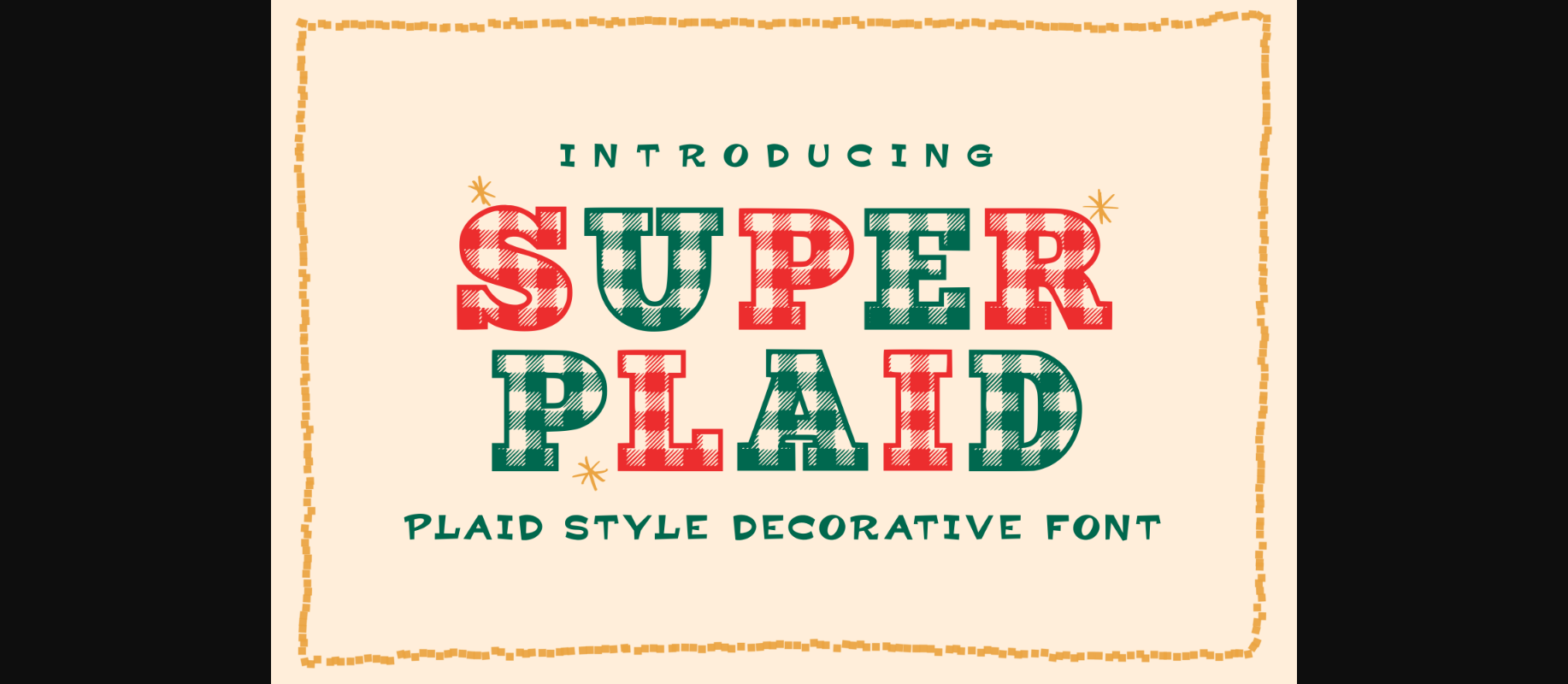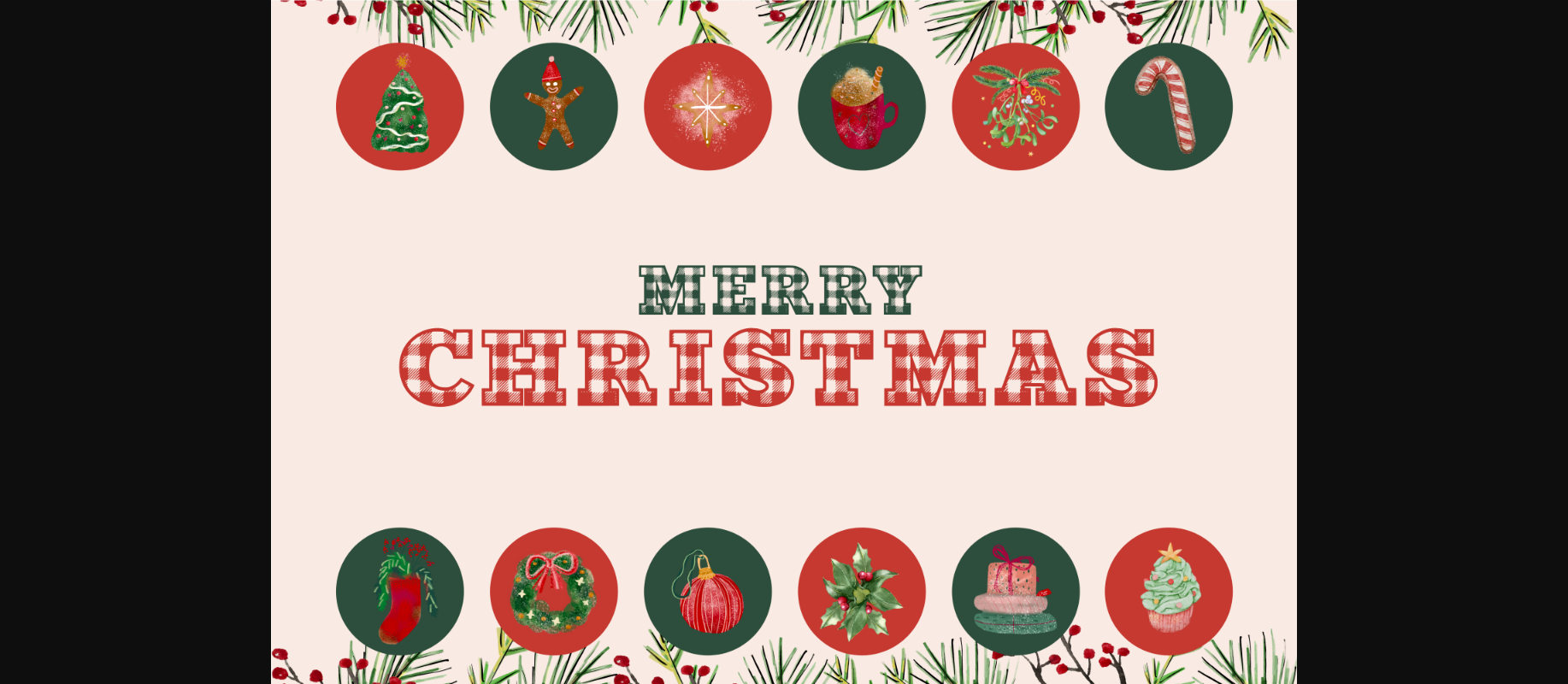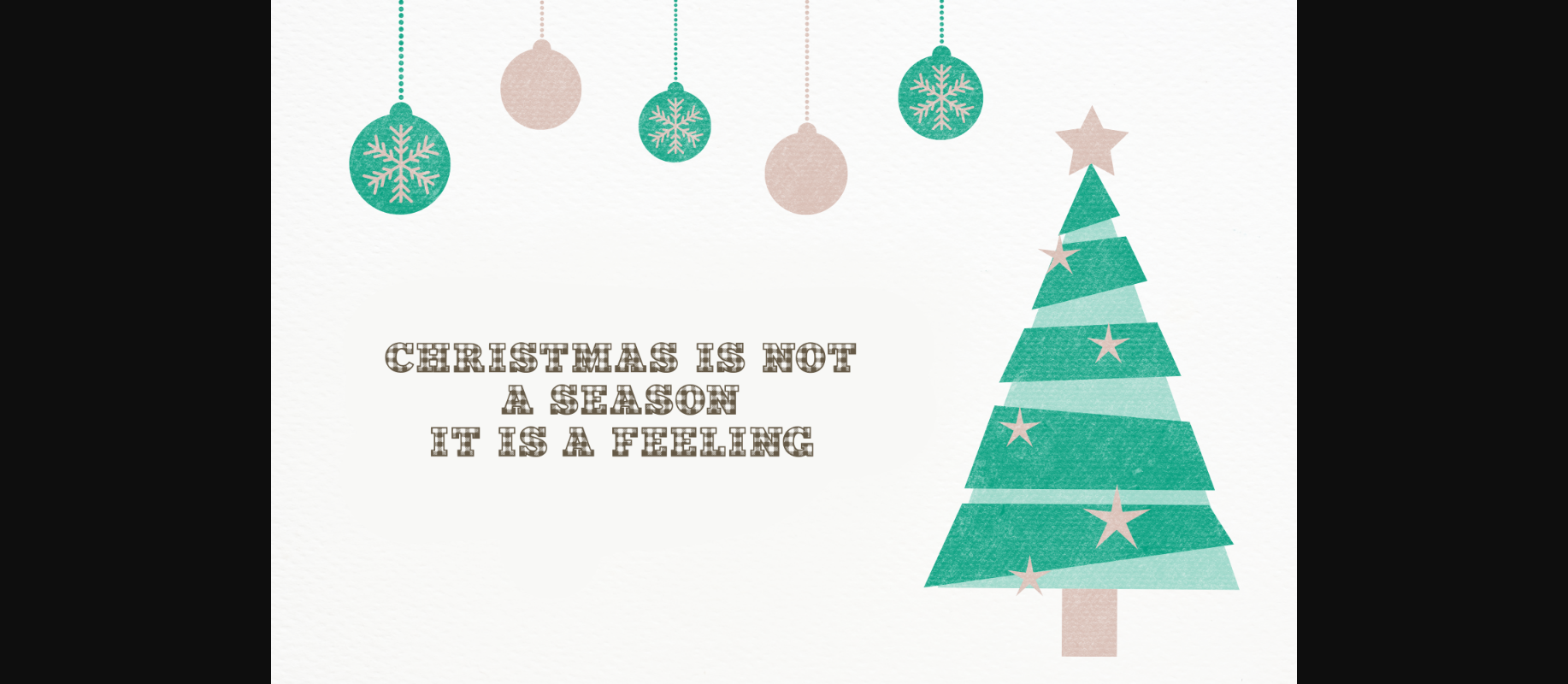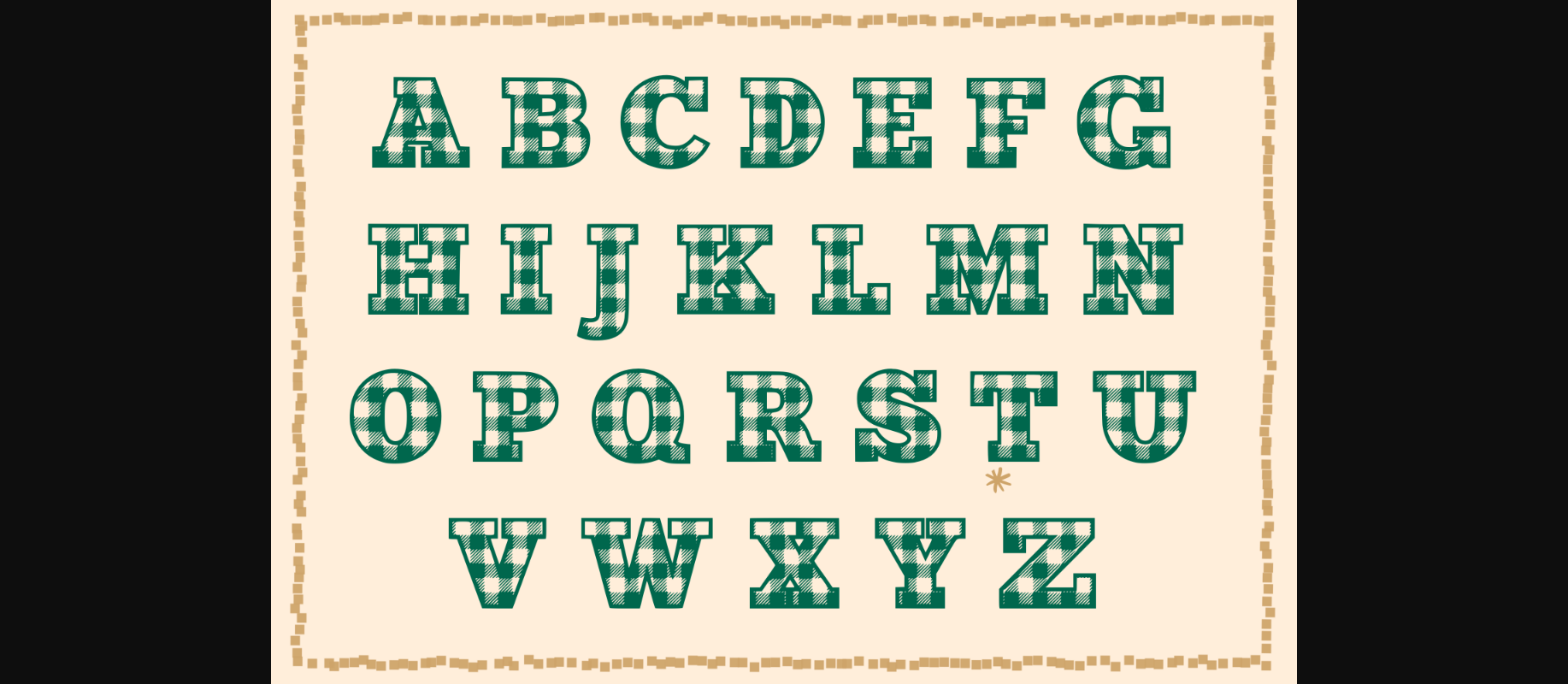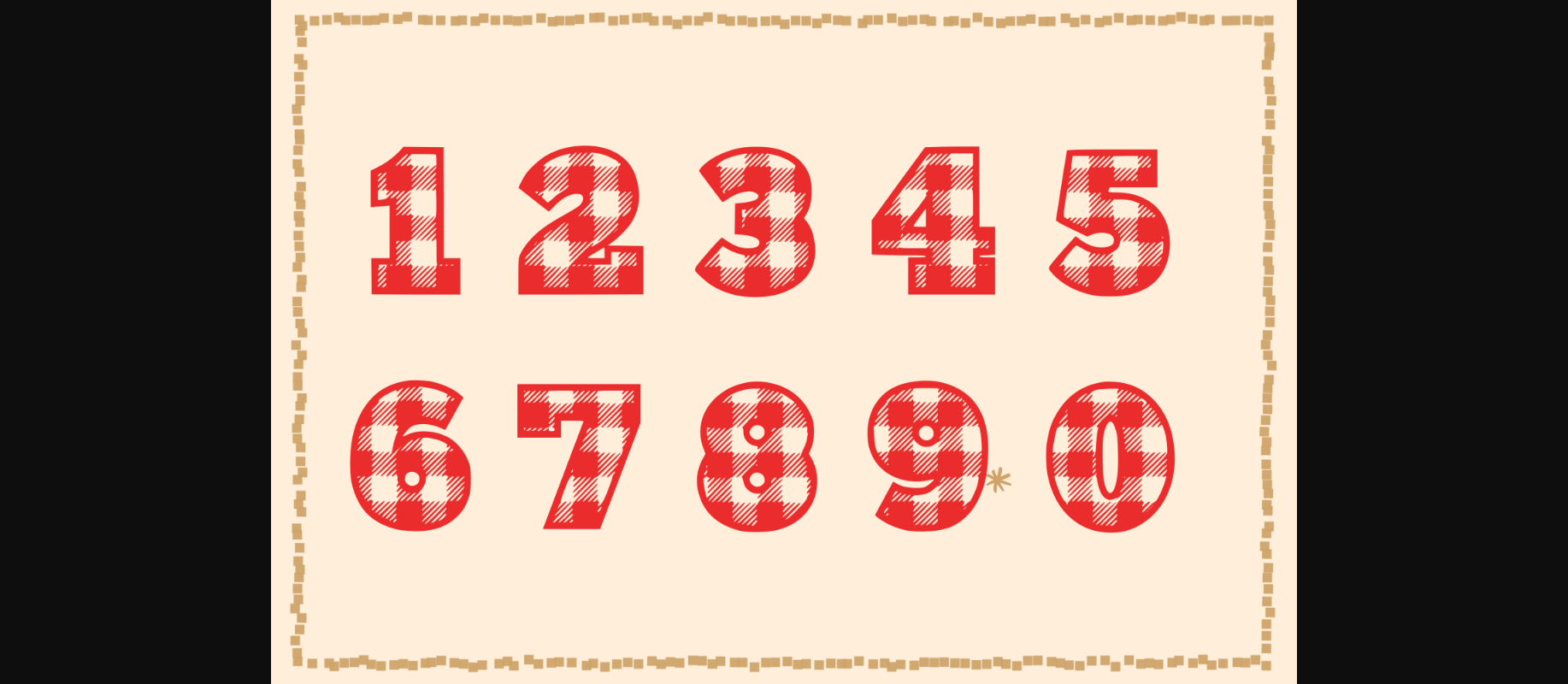
Super Plaid Font
About Super Plaid Font
Super Plaid is a decorative font, perfect for Christmas and the upcoming holiday season. Make your holiday artwork with a plaid-patterned font that is beautiful and easy to read. It will look outstanding on anything you add it on.